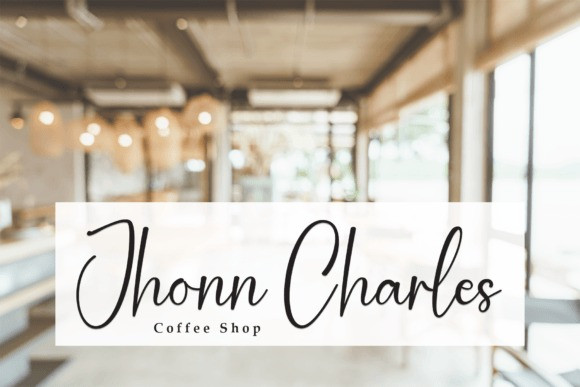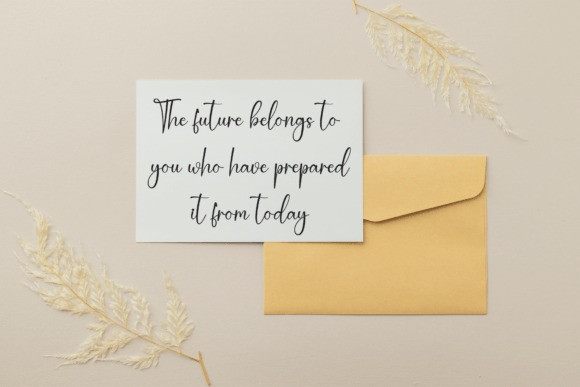
Brittany Script Font
Brittany Script Font is an enchanting handwritten font that adds a touch of elegance to your projects. With graceful swashes and a charmingly imperfect quality, this font captures the warmth and personality of handcrafted writing. Whether used for invitations, greeting cards, or creative designs, Brittany brings a delightful and whimsical flair to your text, creating a uniquely captivating aesthetic.